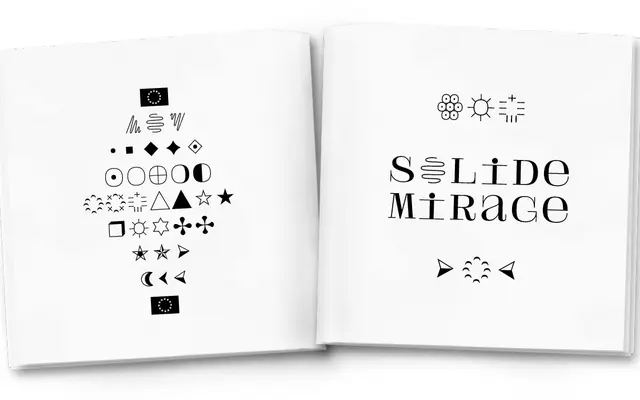
Solide Mirage
Studio Triple · 2017
A bespoke open-source typeface created in 2017 for French band Frànçois And The Atlas Mountains.
Commissioned by the band Frànçois And The Atlas Mountains, Solide Mirage is a custom typeface designed to serve their visual identity. Studio Triple released it as open-source, making it freely available beyond its original brief. Details on weights and character set are sparse, reflecting the page's minimal documentation.
Described simply as a custom typeface for a music band; minimal detail available, but the bespoke nature and musical context suggest a display-oriented design rather than a text face.